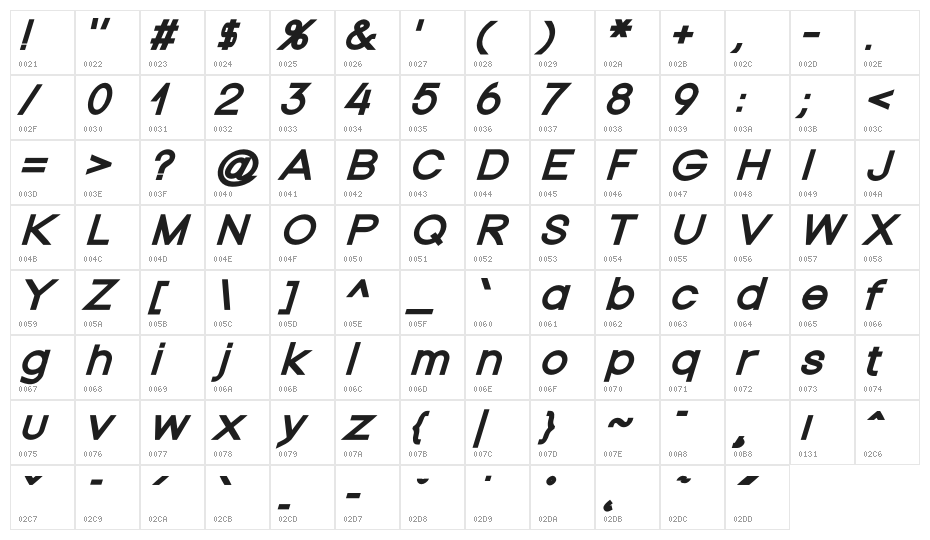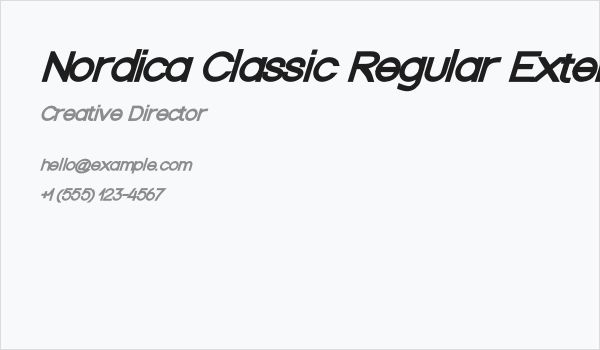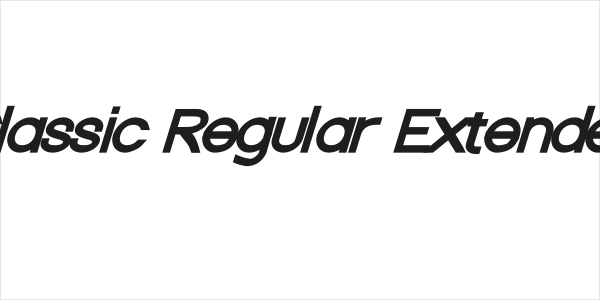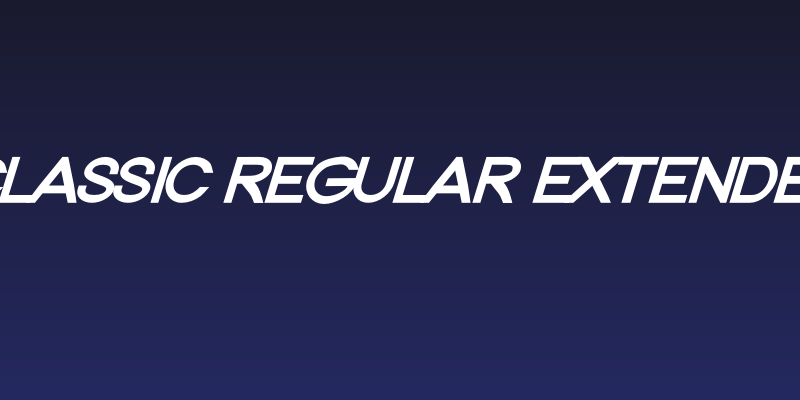
Nordica Classic Regular Extended Oblique Font
Nordica Classic Regular Extended Oblique Description
This font features a sleek, modern design with an oblique style that adds a dynamic and forward-moving feel. The characters are extended, providing a sense of spaciousness and elegance. The strokes are consistent in weight, offering a uniform appearance that enhances readability. The uppercase and lowercase letters maintain a harmonious balance, while the numerals and special characters are crafted with precision, ensuring versatility across various applications. The overall aesthetic is contemporary, making it suitable for projects that require a clean and professional look.
| Proposed Projects | Ideal for branding, advertising, and editorial design where a modern and professional appearance is desired. |